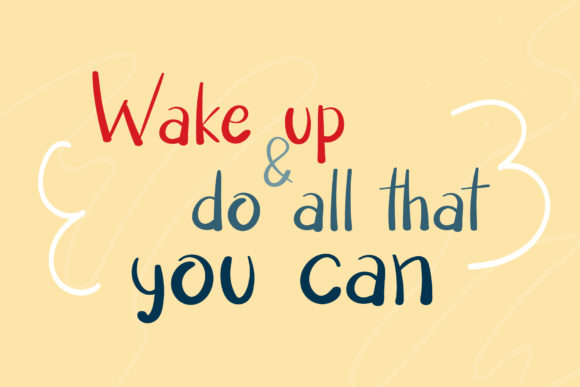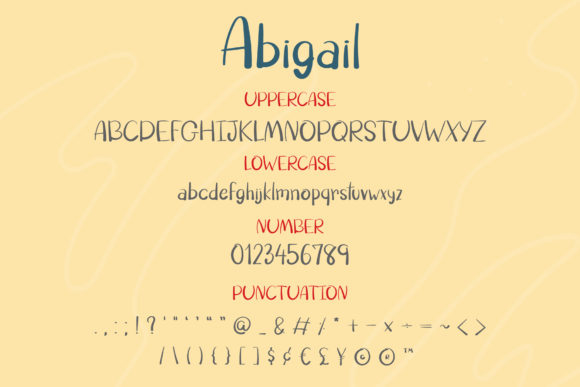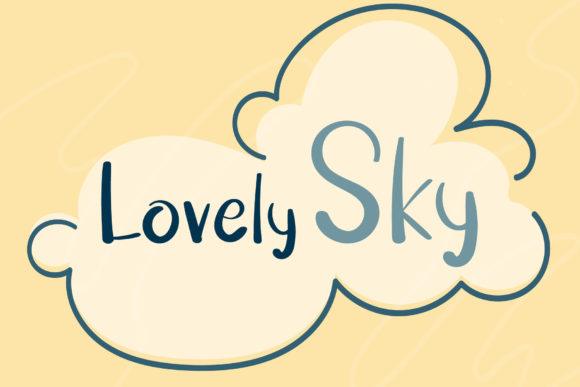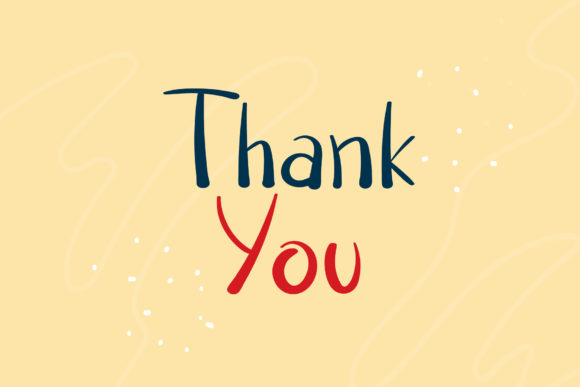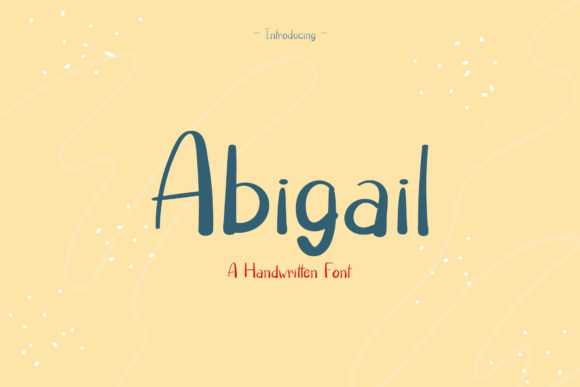
Introducing Abigail Font: The Ultimate Handwritten Font for Creative Projects
Are you a designer, crafter, or DIY enthusiast looking for a font that can add a personal touch to your creative projects? Look no further than Abigail Font, a cute and casual handwritten font that exudes warmth and friendliness. In this article, we’ll explore the features and benefits of Abigail Font, and how it can elevate your designs and projects to the next level.
The Characteristics of Abigail Font
Abigail Font is a beautifully crafted handwritten font that boasts an incredibly friendly feel. Its casual and approachable style makes it perfect for a wide range of creative projects, from social media graphics and Instagram posts to calligraphy scripts and DIY crafts. The font’s unique characteristics include:
- Handwritten style: Abigail Font is a genuine handwritten font that mimics the natural flow and imperfections of human handwriting.
- Cute and casual: The font’s playful and relaxed style makes it ideal for projects that require a friendly and approachable tone.
- Highly legible: Despite its casual nature, Abigail Font is highly legible and easy to read, making it perfect for body text and captions.
Uses of Abigail Font
Abigail Font is an incredibly versatile font that can be used for a wide range of creative projects, including:
- Social media graphics: Add a personal touch to your Instagram posts, Facebook updates, and Twitter tweets with Abigail Font.
- Calligraphy scripts: Use Abigail Font to create beautiful calligraphy scripts for DIY projects, such as wedding invitations, greeting cards, and gift tags.
- DIY crafts: Abigail Font is perfect for crafters who want to add a personal touch to their projects, such as scrapbooking, journaling, and handmade cards.
- Branding and packaging: Use Abigail Font to create custom branding and packaging materials, such as logos, labels, and product packaging.
Benefits of Using Abigail Font
So why choose Abigail Font for your creative projects? Here are just a few benefits of using this amazing font:
- Easy to use: Abigail Font is incredibly easy to use, even for those who are new to design and crafting.
- Customizable: The font can be easily customized to fit your project’s specific needs, including adjusting the size, color, and style.
- Unique and creative: Abigail Font adds a unique and creative touch to any project, setting it apart from more traditional fonts.
- Time-saving: With Abigail Font, you can quickly and easily create professional-looking designs and projects without spending hours on end designing from scratch.
Tips and Tricks for Using Abigail Font
Here are a few tips and tricks for getting the most out of Abigail Font:
- Experiment with colors: Try pairing Abigail Font with different colors and textures to create unique and eye-catching designs.
- Mix and match: Combine Abigail Font with other fonts and graphics to create visually interesting and dynamic designs.
- Pay attention to spacing: Make sure to adjust the spacing and kerning of Abigail Font to ensure it looks its best.